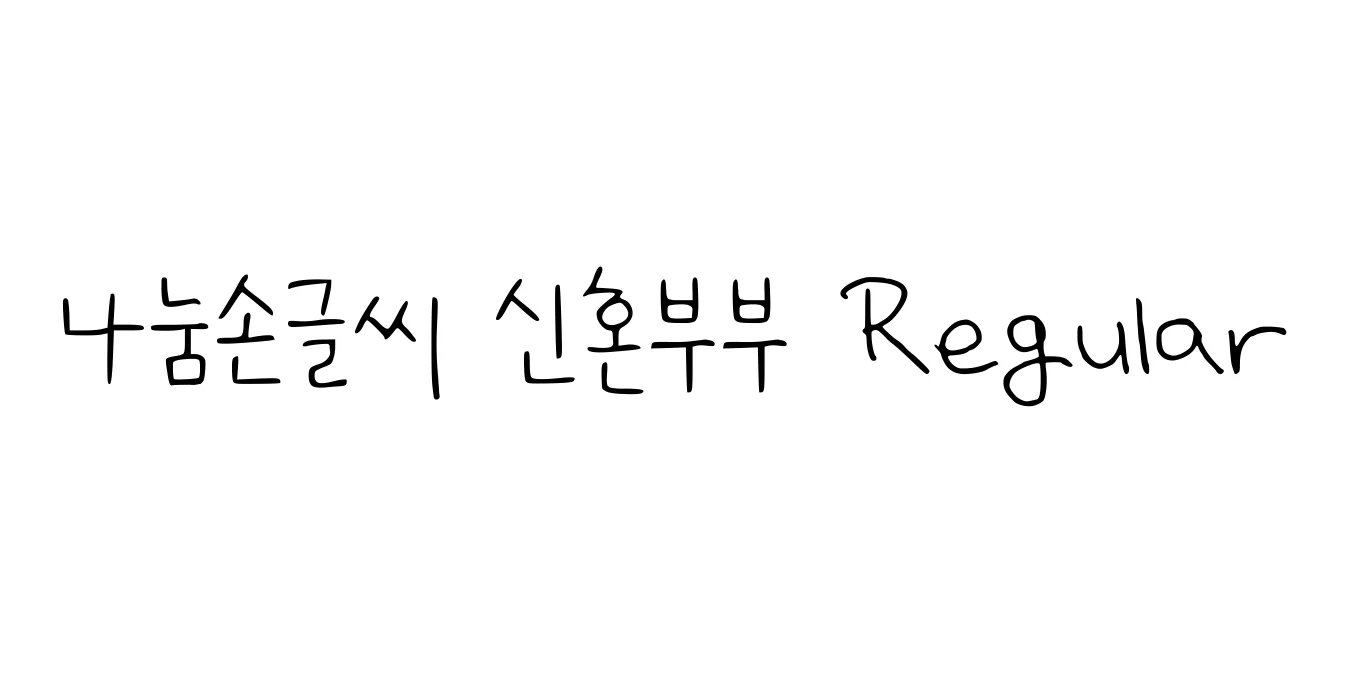
나눔손글씨 신혼부부 Regular
Designed by Naver (Clova AI Handwriting Project)
| Category | Handwriting / Script |
| Designer | Naver (Clova AI Handwriting Project) |
나눔손글씨 신혼부부 Regular is a heartwarming Korean handwriting font released by Naver in 2019 to celebrate Hangeul Day. It was developed as part of a campaign that transformed 109 real people's handwriting into digital typefaces using advanced AI technology. This specific style captures the endearing and cozy handwriting of a participant representing the 'Newlywed' theme, characterized by its soft, rounded strokes and a natural, rhythmic flow that feels both personal and approachable.
Technically, the font utilizes Clova AI to ensure that the unique nuances of human penmanship are preserved, making it stand out from standard mechanical fonts. It is highly sought after for digital journaling and lifestyle-oriented design projects because it conveys a sense of warmth and intimacy. Its clean yet casual structure makes it versatile for both digital screens and printed materials where a friendly, human touch is required.
나눔손글씨 신혼부부 Regular Best Uses
Ideal for personalizing digital planners, diaries, and note-taking apps.
Perfect for adding a warm, human touch to Instagram stories, quotes, and lifestyle posts.
Great for informal wedding invitations, thank-you cards, and anniversary stationery.
Effective for brands that want to convey a friendly, approachable, and cozy image.